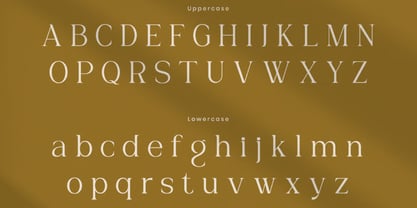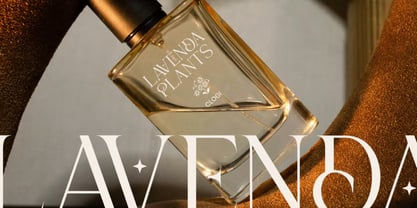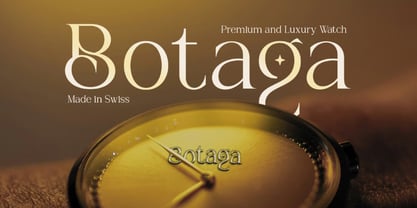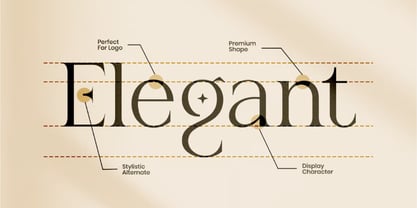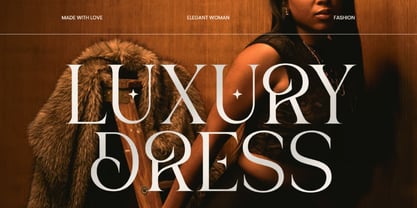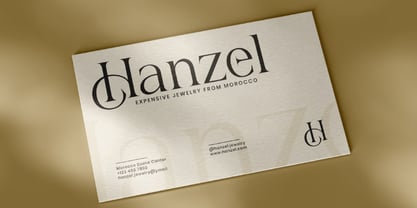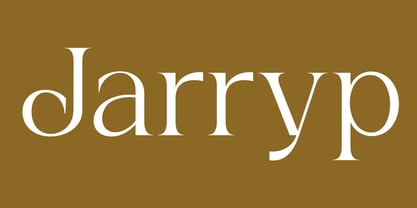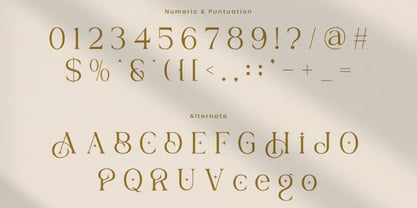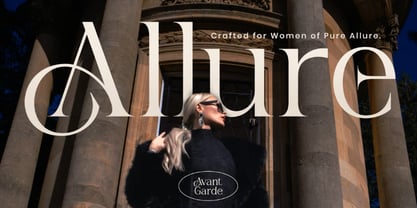
Jarryp
Jarryp is a beautiful luxury serif font thoughtfully crafted to bring timeless elegance, refined sophistication, and premium style to every creative project. Featuring graceful curves, artistic ligatures, and subtle high-contrast strokes, Jarryp combines classic serif beauty with modern luxury aesthetics, making it the perfect choice for designers who value elegance and exclusivity.
Designed with exceptional attention to detail, Jarryp offers stunning ornamental letterforms that create a memorable visual identity while maintaining excellent readability. Its harmonious balance between delicate refinement and bold presence makes it ideal for premium branding, fashion editorials, luxury packaging, wedding stationery, and upscale marketing materials.
Whether you're designing a prestigious fashion label, creating elegant wedding invitations, developing luxury cosmetic packaging, or producing sophisticated editorial layouts, Jarryp transforms ordinary typography into a statement of class, beauty, and timeless appeal.
✿ Key Features:
• Luxury Serif Design: Elegant letterforms inspired by timeless editorial typography.
• Graceful Curves & High-Contrast Strokes: Beautifully balanced for premium visual impact.
• Stylish Ligatures: Seamless character combinations for sophisticated typography.
• Decorative Ornamental Details: Unique glyphs that add glamour and exclusivity.
• Uppercase & Lowercase Characters: Complete alphabet for versatile design applications.
• Numerals & Punctuation: Professional character set for branding and editorial work.
• Premium Display Typeface: Perfect for logos, headlines, and elegant typography.
• Optimized for Print & Digital: Delivers exceptional quality across all media.
✿ Perfect For:
• Luxury Branding & Logo Design: Create unforgettable high-end brand identities.
• Fashion Branding & Editorial Design: Perfect for magazines, lookbooks, and designer campaigns.
• Wedding Invitations & Stationery: Add timeless elegance to weddings and special events.
• Luxury Packaging: Ideal for cosmetics, perfumes, jewelry, skincare, and boutique products.
• Editorial Layouts & Magazine Covers: Elevate publishing with refined typography.
• Social Media & Marketing: Design premium promotional content with sophisticated style.
• Boutique Businesses & Lifestyle Brands: Build elegant and memorable visual identities.
Bring timeless sophistication to your next project with Jarryp—a beautiful luxury serif font featuring elegant curves, artistic ligatures, and refined high-contrast styling. Perfect for luxury branding, fashion editorials, wedding stationery, premium packaging, boutique logos, and creative projects that demand elegance, exclusivity, and unforgettable visual appeal.